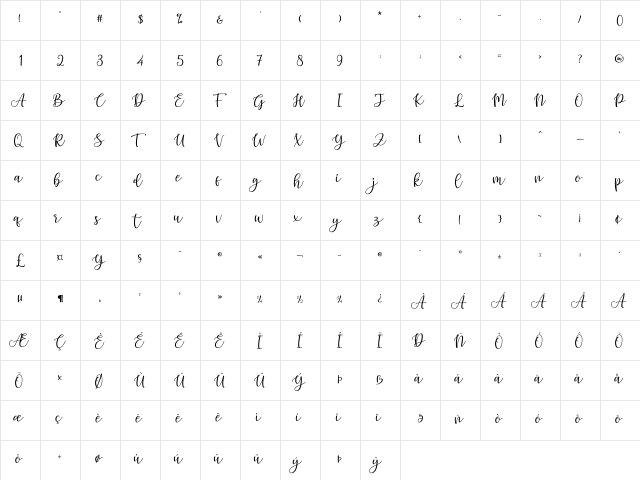
Hello Grizelle Regular
| Foundry | Wandani Creative |
| Designer | Rizaldi Wandani |
Design Context for Hello Grizelle Typeface
Hello Grizelle is a composed and adaptable typeface that performs quietly and consistently across a wide range of design contexts.